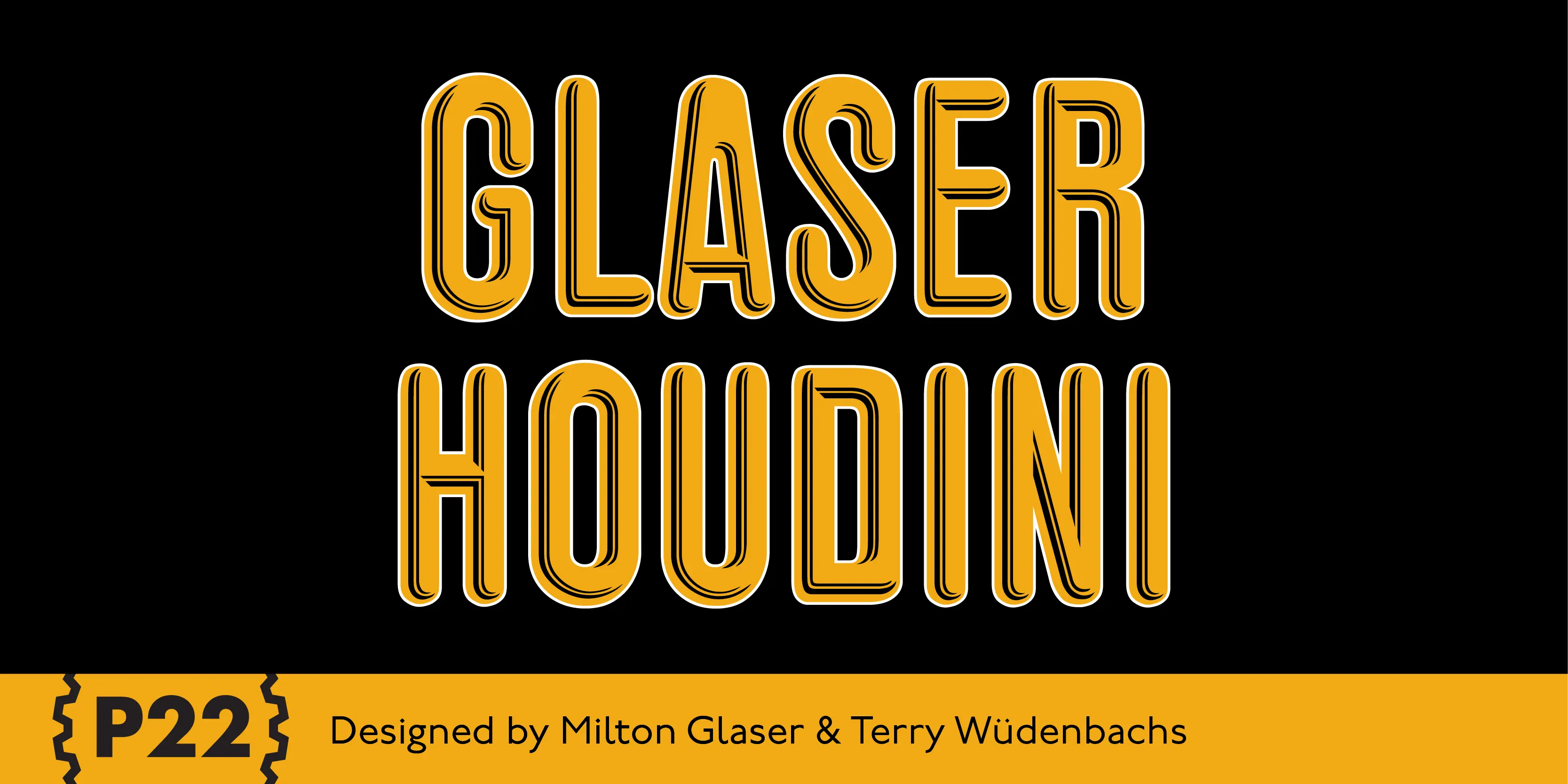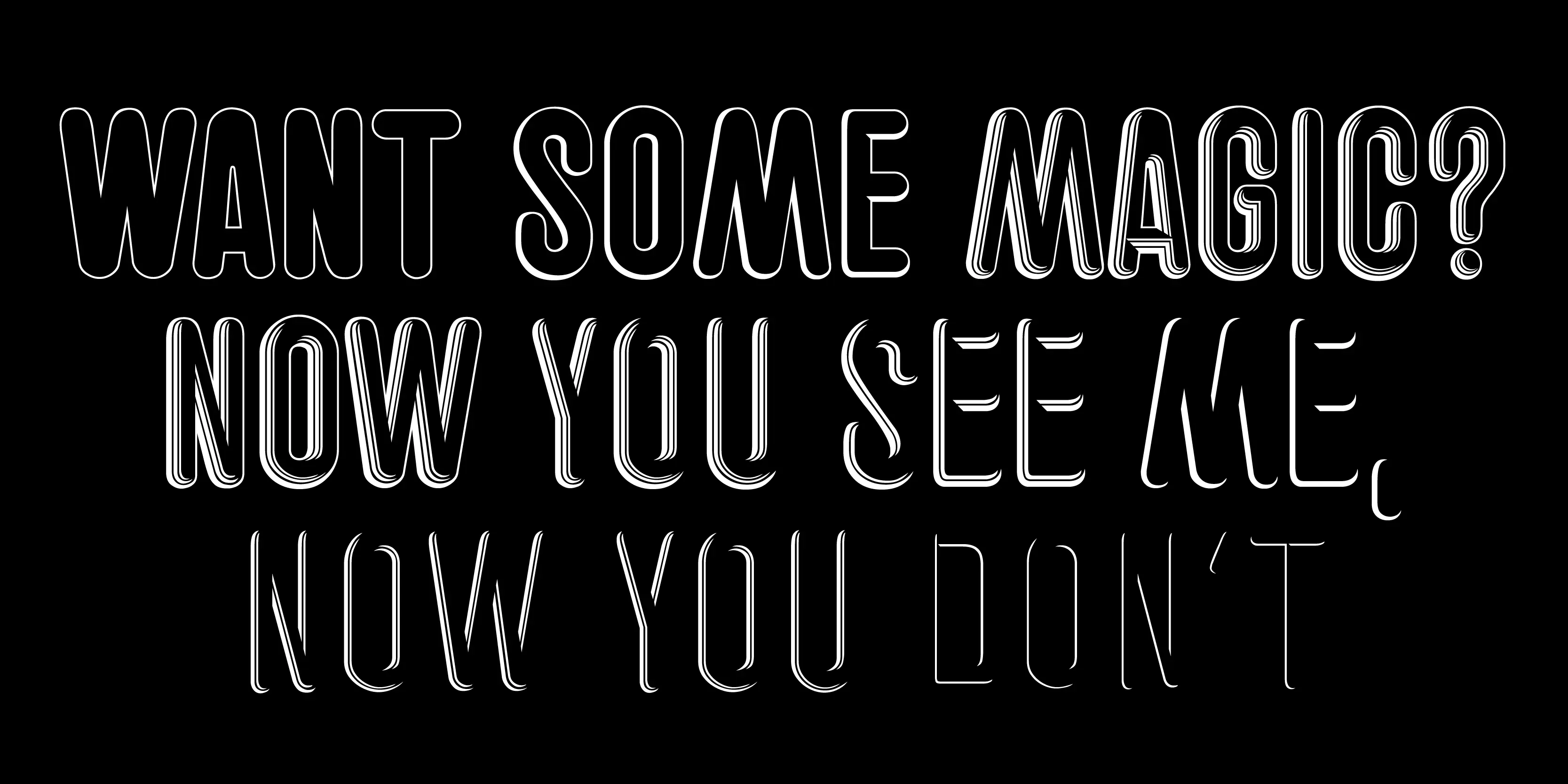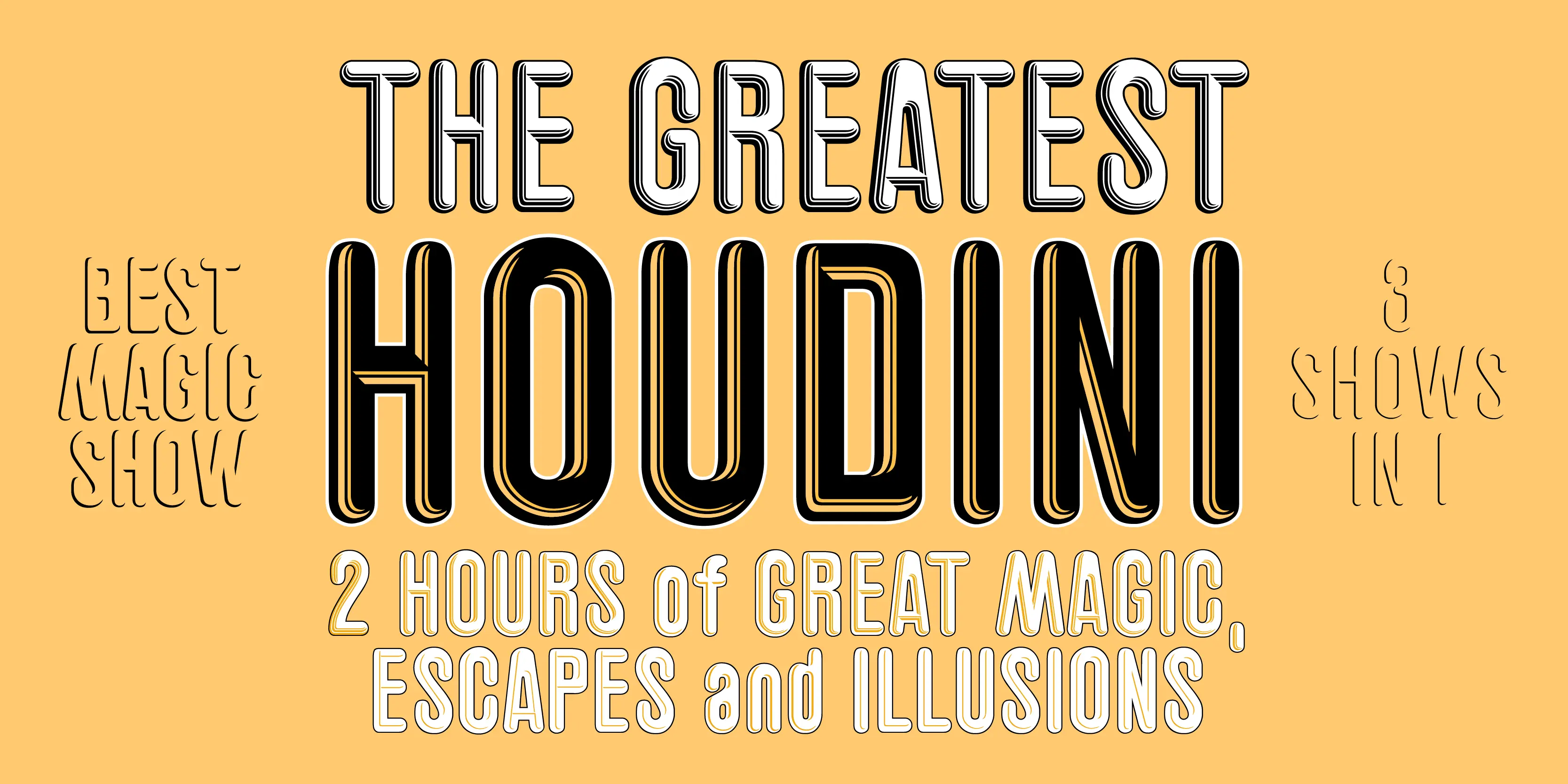
Glaser Houdini Font Family
Glaser Houdini
Milton Glaser commented about this type family: “The typeface is called Houdini after the famous American magician. I wanted to produce a letterform that would gradually disappear as one line after another was removed.” The various versions of Houdini presented by P22 include those originally offered as phototypesetting fonts, plus a solid and an outline version — a variation of which was used for Sesame Place children’s park in 1980. These Houdini variations can all be layered on top of each other for a range of chromatic effects. Each of the Houdini fonts contains over 375 characters for full European language coverage. The family is taken to its logical conclusion with the bonus font “P22 Glaser Houdini Vanished.” This font shares the same spacing and kerning as all of the Houdini font but lacks all visible outlines. Over the years there have been many typefaces that borrowed heavily from the Glaser designs, but these are the only official fonts approved by Milton Glaser Studio and the Estate of Milton Glaser.